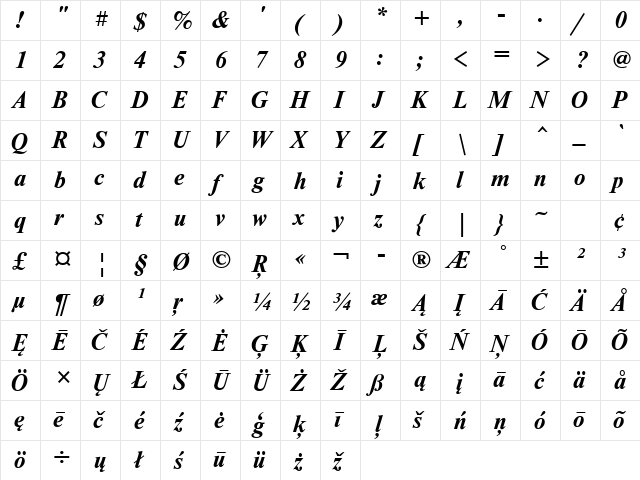
NewtonBTT BoldItalic
Design Context for NewtonBTT Typeface
NewtonBTT takes a measured approach to typography — its balanced proportions and neutral character make it a reliable workhorse for both digital and print work. The slanted form adds forward momentum and visual energy. The heavy weight commands attention and anchors typographic hierarchies.
Pro Tip: Use NewtonBTT for emphasis, pull quotes, and subheadings where its slanted energy can add rhythm to the layout.